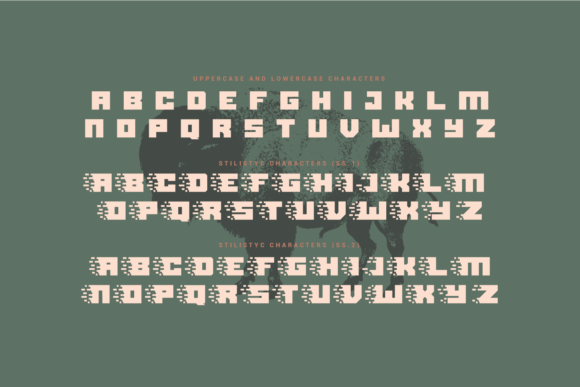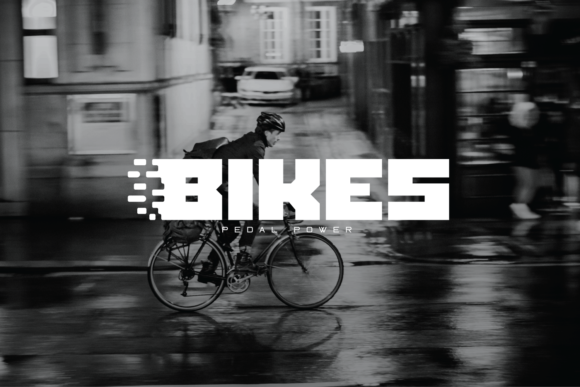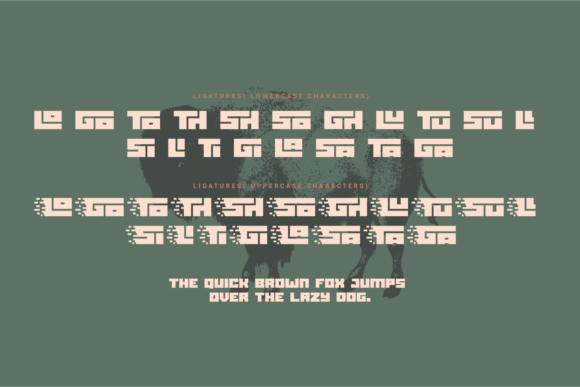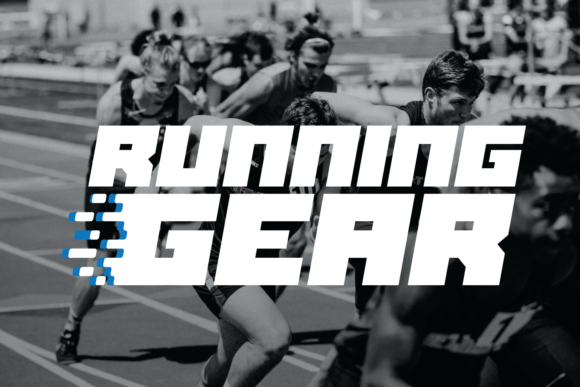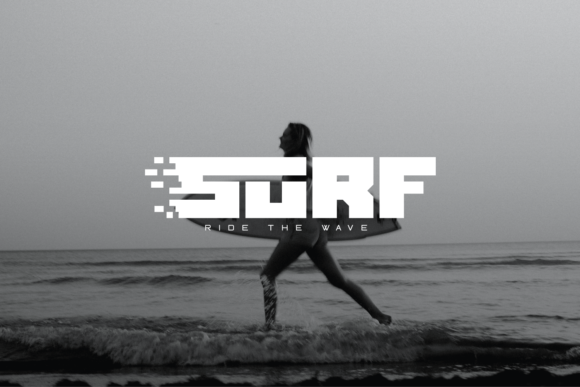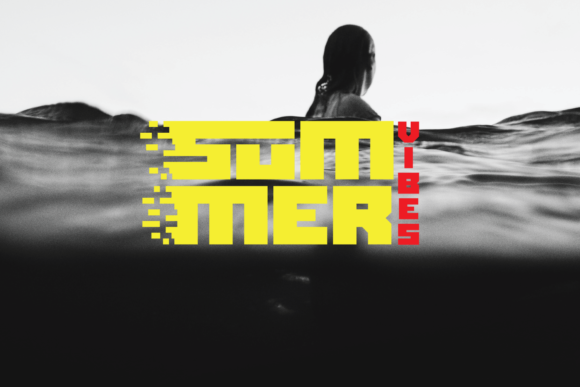
Unleash Your Creativity with Black Bison Font
Are you a designer, craftsperson, or simply someone who loves to dabble in creative projects? Look no further than the Black Bison font, an assertive display font that’s sure to take your work to the next level. Masterfully designed to make a statement, Black Bison is the perfect choice for anyone looking to add a touch of boldness and sophistication to their projects.
The Power of Black Bison Font
Black Bison font is more than just a pretty face – it’s a versatile tool that’s designed to help you bring your creative ideas to life. With its strong, confident lines and sleek, modern aesthetic, this font is perfect for a wide range of applications, from branding and advertising to packaging and web design.
Whether you’re looking to create a bold logo, craft a compelling headline, or simply add some visual interest to your website or social media channels, Black Bison font is the perfect choice. Its assertive personality and high-impact design make it impossible to ignore, ensuring that your message gets seen and heard by your target audience.
What Makes Black Bison Font So Special?
So, what sets Black Bison font apart from other display fonts on the market? Here are just a few key features that make it a standout:
- Unique Design: Black Bison font boasts a distinctive design that’s both modern and timeless. Its sleek lines, bold shapes, and confident personality make it a true showstopper.
- Versatility: Whether you’re working on a digital project or a print-based design, Black Bison font is the perfect choice. Its high-resolution design ensures that it looks great in any context.
- Easy to Read: Despite its bold personality, Black Bison font is surprisingly easy to read, even at smaller sizes. This makes it perfect for use in a wide range of applications, from body copy to headlines.
- Customizable: With its wide range of weights and styles, Black Bison font is highly customizable. Whether you’re looking to create a bold, eye-catching headline or a more subtle, sophisticated design, this font has got you covered.
How to Use Black Bison Font in Your Designs
Ready to unleash the power of Black Bison font in your designs? Here are a few tips to get you started:
- Pair it with a neutral font: For maximum impact, pair Black Bison font with a neutral font that provides a clean and simple contrast. This will help your bold headline or logo really stand out.
- Experiment with different weights: Black Bison font comes in a range of weights and styles, so don’t be afraid to experiment and find the one that works best for your design.
- Use it sparingly: While Black Bison font is certainly attention-grabbing, it’s best used sparingly. A little goes a long way, and too much of a good thing can quickly become overwhelming.